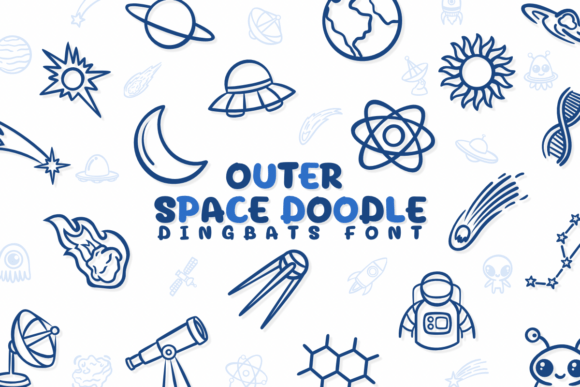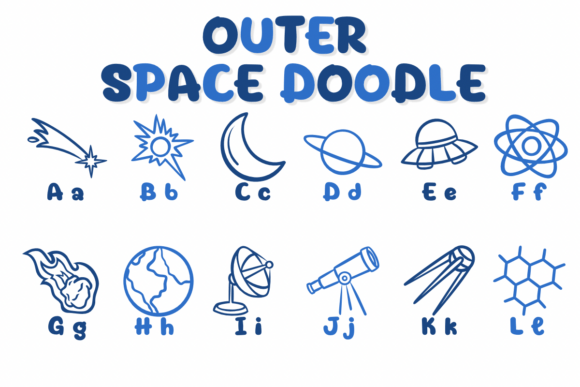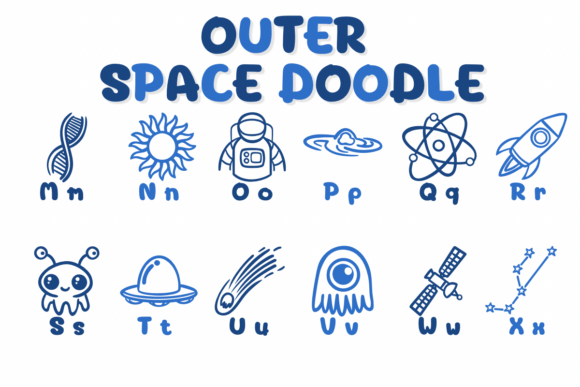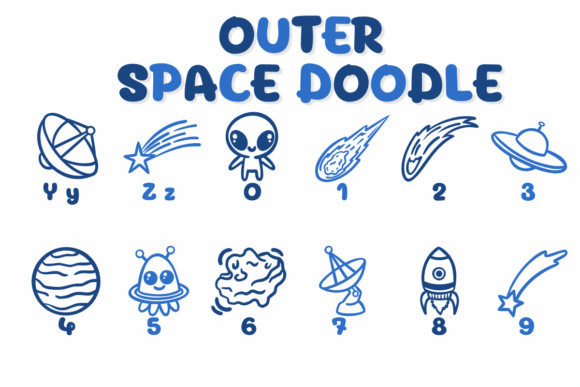
Outer Space Doodle Font
About the Outer Space Doodle Font
Explore the possibilities with Outer Space Doodle Font, a font that offers both beauty and functionality. Outer Space Doodle is a playful and imaginative dingbats font filled with hand-drawn cosmic elements! Featuring rockets, planets, UFOs, astronauts, and more, this font is perfect for kids’ projects, science-themed prints, space party invitations, educational resources, and creative branding. Add a touch of fun from the final frontier to your next design!
Outer Space Doodle Font’s playful energy makes it ideal for children’s books, branding for playful businesses (toy stores, children’s entertainment), and eye-catching posters or social media graphics. It excels in short, impactful headlines and logos where its quirky details shine. However, its highly decorative nature makes it unsuitable for body text or UI elements requiring high readability.
For a balanced design, pair Outer Space Doodle with a clean sans-serif like Open Sans for body copy, providing a strong contrast in styles. Alternatively, a simple, geometric sans-serif such as Montserrat could offer a modern counterpoint to the font’s hand-drawn charm. Avoid pairing it with other highly decorative fonts to prevent visual clutter.
The overall personality is fun, whimsical, and boldly expressive, best suited for projects targeting a young audience or those needing a lighthearted, creative touch.
Outer Space Doodle Font Usage Examples
Outer Space Doodle Font Example